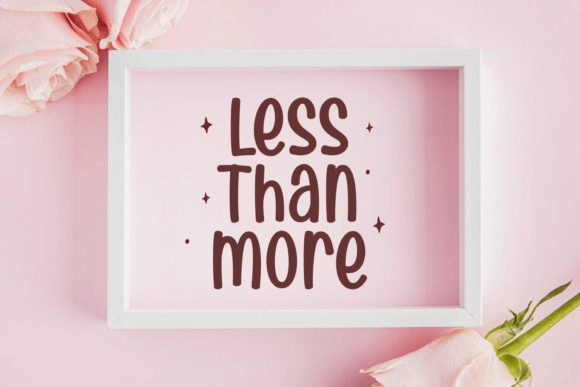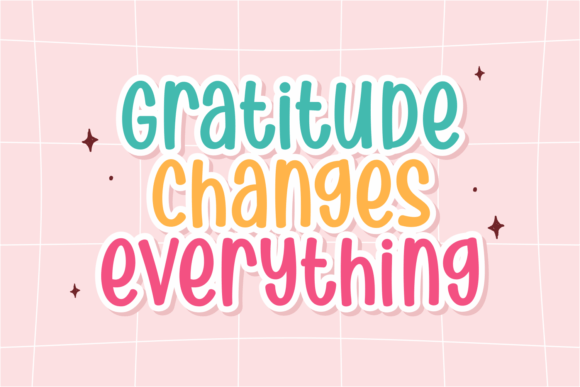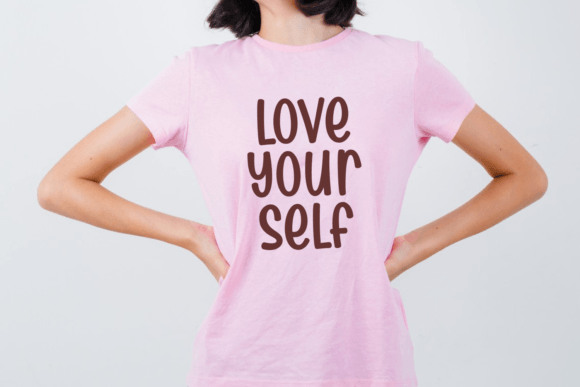
Introduction to Karina Notes Font
Introducing Karina Notes, a whimsically playful display font that breathes a dash of fun and delight into your creative projects.
It flawlessly glides into an array of themes – from school-related designs to summer aesthetics or even birthday party invites Beyond being merely versatile, Karina Notes takes customization to another level, opening up an arena of possibilities for diverse uses including holiday messages, trendy apparel designs, one-of-a-kind craft projects, adorable stickers, and even sublimation applications.